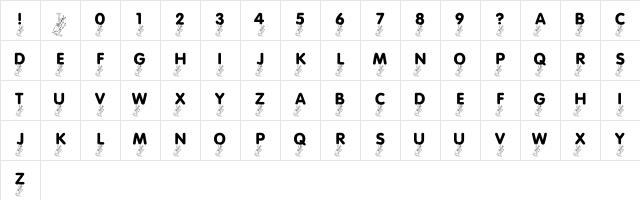
LMS Picnic Parade Regular Font Preview
LMS Picnic Parade Regular
Design Context for LMS Picnic Parade Typeface
LMS Picnic Parade takes a measured approach to typography — its balanced proportions and neutral character make it a reliable workhorse for both digital and print work.